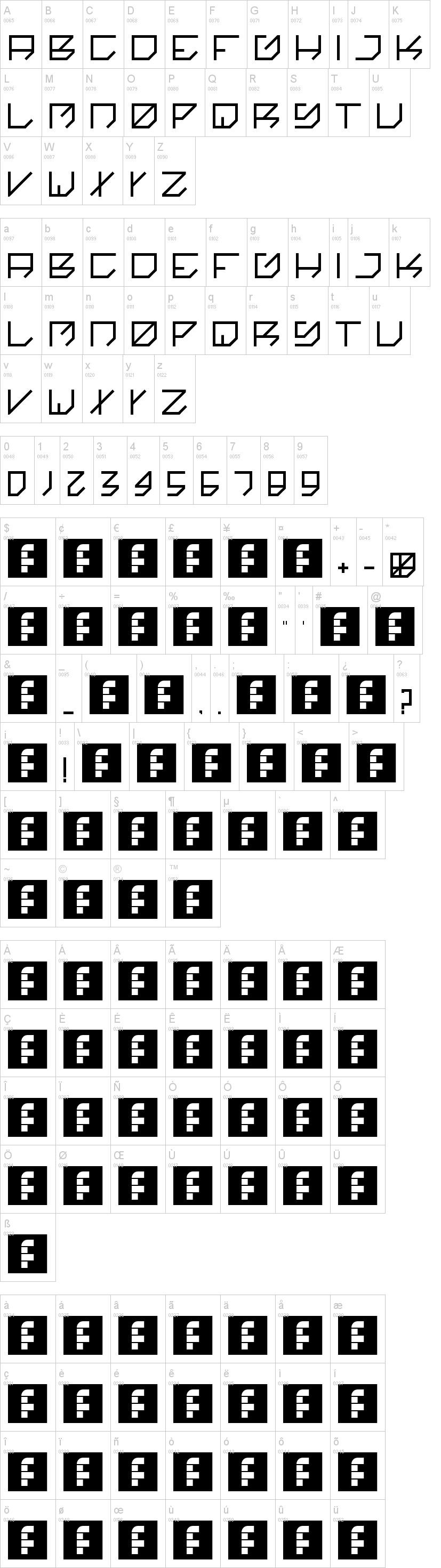
Note of the authorkikakee is a headline font created from a grid structure (press * to see grid structure). It was named after Camp Kikakee in Ernest Goes to Camp.